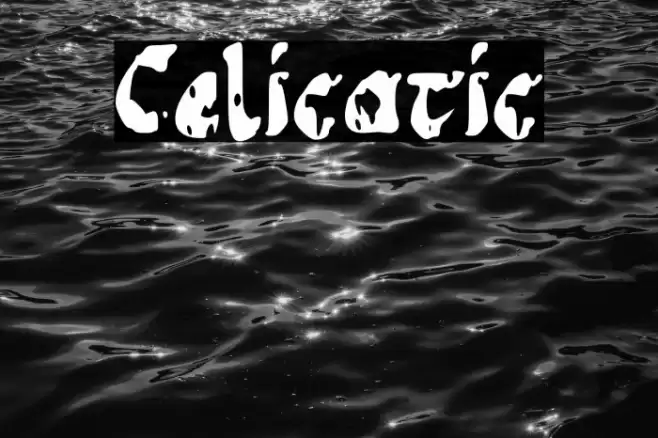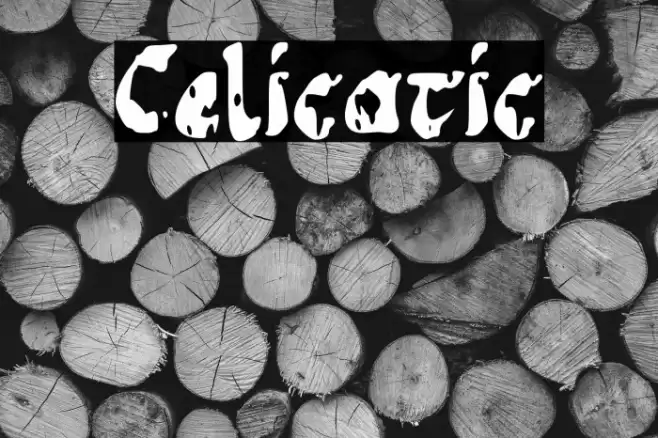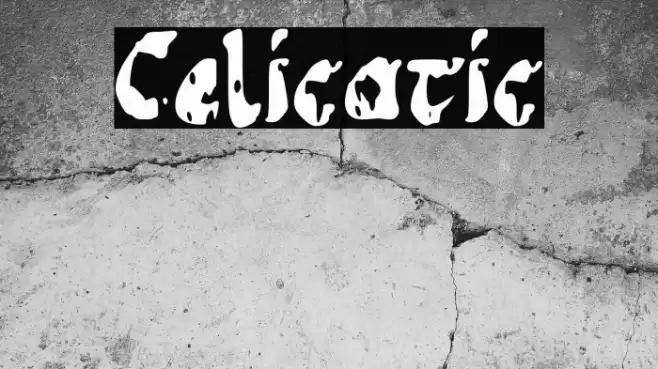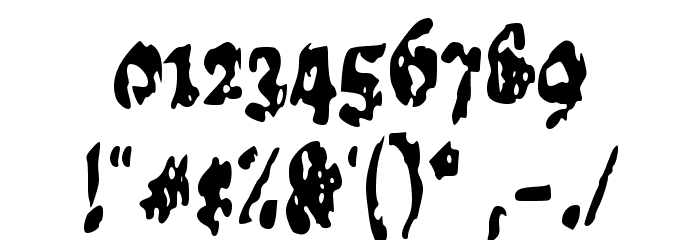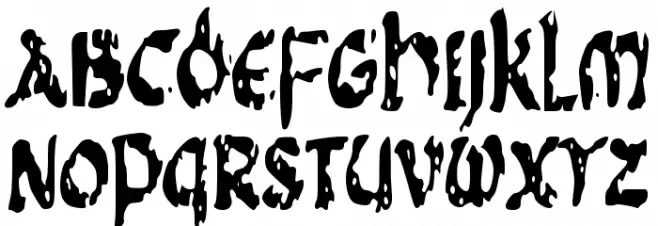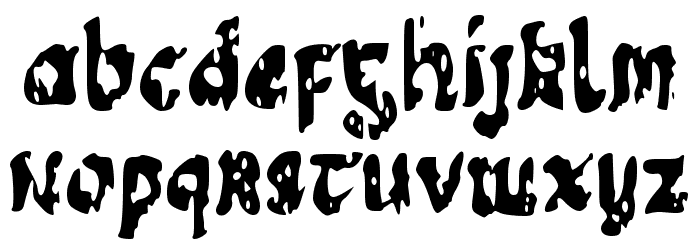
Celicatic Font
Celicatic Description
This font features a highly decorative and unique style, characterized by its dripping, liquid-like appearance. Each letter seems to be melting or oozing, creating a visually striking effect that is both playful and slightly eerie. The uppercase and lowercase letters maintain this consistent theme, with rounded edges and irregular shapes that add to the font's organic feel. The numbers and special characters follow the same design principles, ensuring a cohesive look across all glyphs. This font is perfect for projects that require a bold and unconventional aesthetic.
A decorative font with a dripping, liquid-like appearance from Uncategorized fonts.
- Proposed Projects: Ideal for Halloween-themed designs, horror movie posters, or any project requiring a spooky, eye-catching typeface.
- Use Case: Headlines, Posters, Themed Events